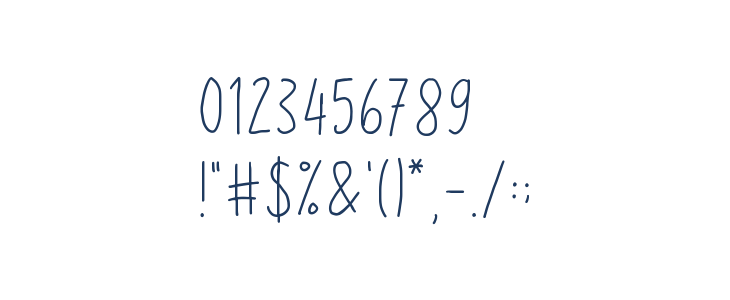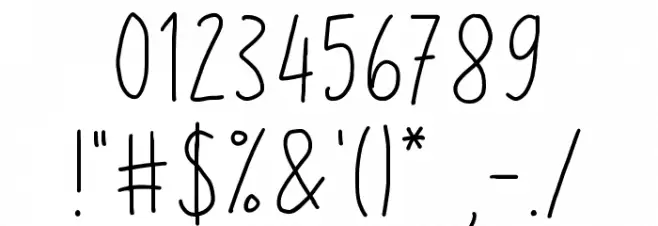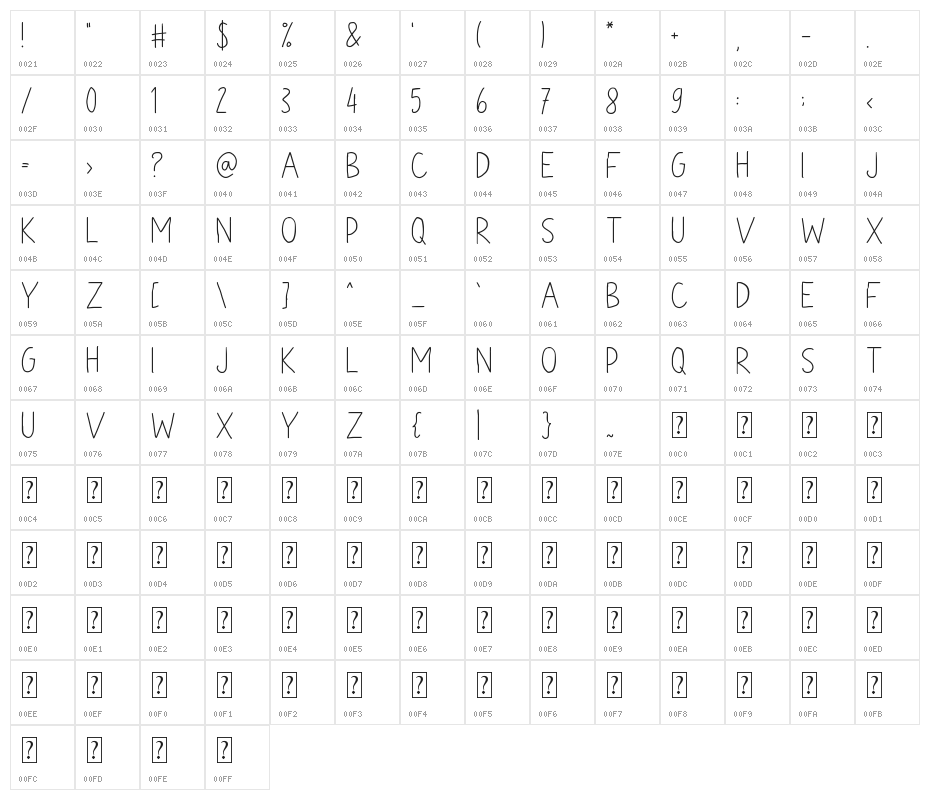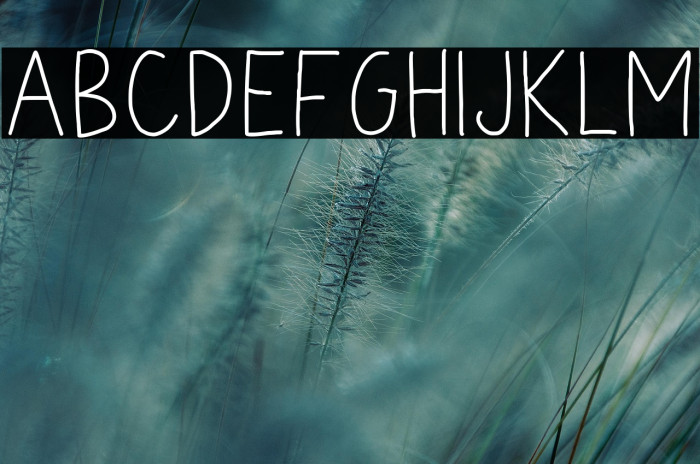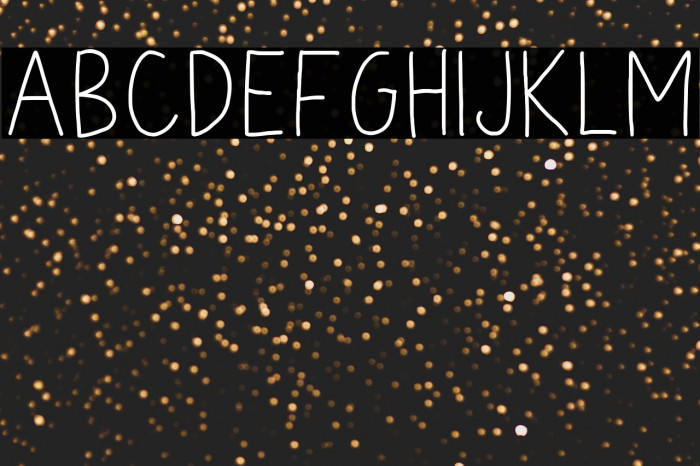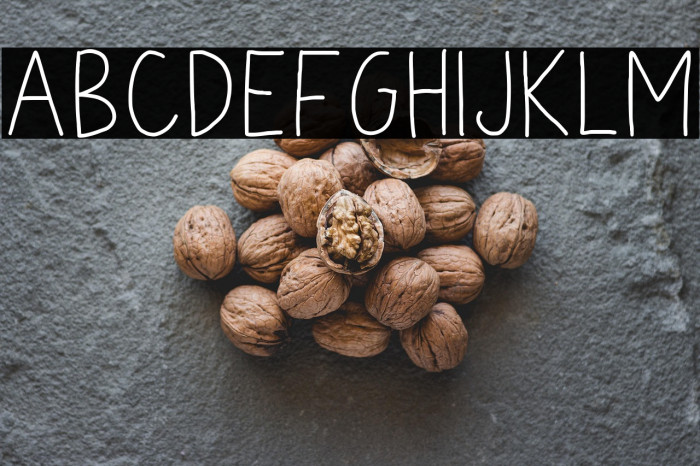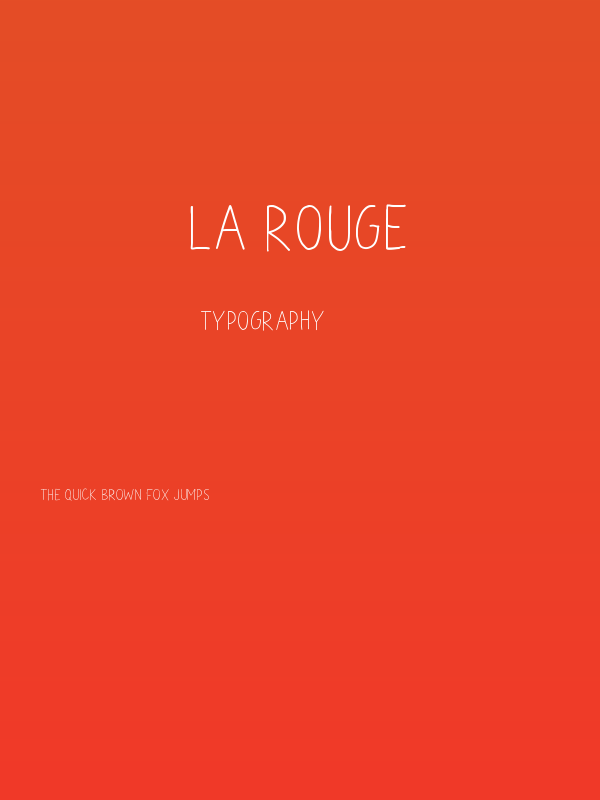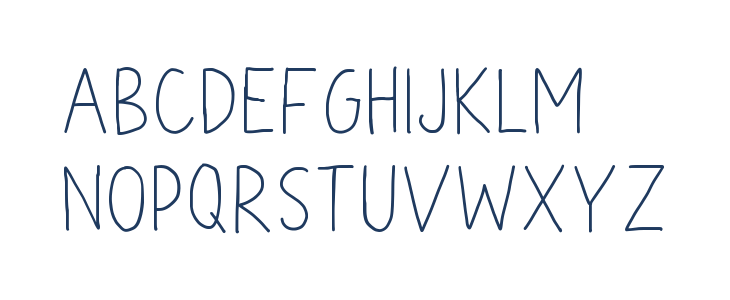
La Rouge Font
La Rouge Description
This font features a playful and informal handwritten style, characterized by its tall, narrow letters and slightly irregular lines. The uppercase and lowercase letters maintain a consistent height, giving it a uniform appearance despite its casual nature. The strokes are thin and even, with a slight wobble that adds to its charm. The numbers and special characters follow the same style, ensuring a cohesive look across all text elements. This font is perfect for projects that require a personal touch, such as greeting cards, invitations, or casual branding.
| Use Case | Headlines, Casual text, Personal projects |
| Proposed Projects | Ideal for greeting cards, invitations, casual branding, and personal projects. |